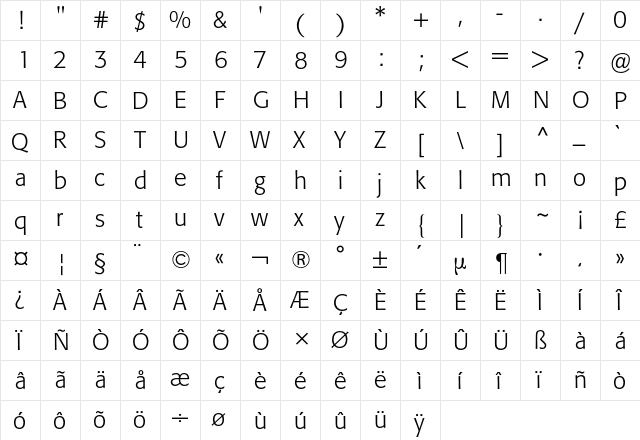
Formata BQ Regular
Design Context for Formata BQ Typeface
Formata BQ offers clean, dependable letterforms without strong stylistic allegiance, making it a practical choice for designers who need flexibility.
Pro Tip: Pair Formata BQ with a font of contrasting weight or personality to build a more expressive typographic hierarchy.